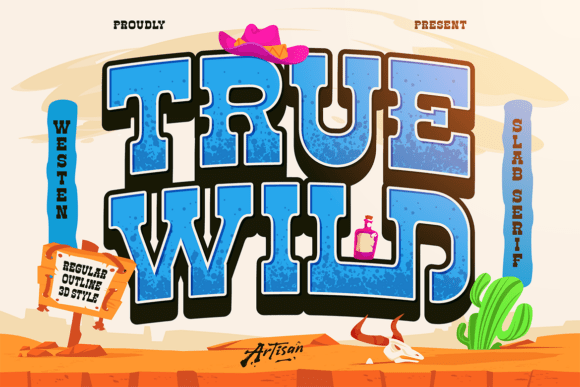
Truewild: A Bold Western Slab Serif for Modern Web Design
When you need a display font that commands attention while telling a story, Truewild delivers a distinctive slab serif personality rooted in the wild frontier but refined for contemporary digital work. This bold Western-style typeface captures the spirit of rugged independence, yet its clean letterforms and structured serifs make it surprisingly adaptable for web projects ranging from landing page headers to brand identity systems. For designers building conversion-focused layouts, Truewild offers a unique balance of character and readability that can elevate everything from hero titles to call-to-action buttons. Its modern twist on classic Western aesthetics means it works equally well for a cowboy movie poster or a rodeo event page, while also fitting seamlessly into boutique e-commerce and creative portfolio sites.
Truewild for Cowboy Movie Posters and Rodeo Branding
Truewild is a natural fit for projects that require a strong thematic presence. When designing a cowboy movie poster or rodeo branding, this display font brings immediate visual storytelling through its bold slab serif construction. The letterforms carry a sense of weight and history that evokes the American frontier, yet the modern proportions keep it from feeling dated. In a poster layout, Truewild works best as the primary title font, anchoring the composition with its sturdy vertical strokes and pronounced serifs. For rodeo event materials—whether printed or digital—the font establishes a cohesive visual tone that communicates tradition, strength, and a hint of adventure. Pair it with a clean sans serif font for dates and venue details, and you have a branded system that feels both authentic and professional.
Using Truewild in Hero Sections and Landing Pages
Hero sections demand typefaces that grab attention within seconds, and Truewild excels in this role. Its bold Western-style slab serif creates immediate visual impact, making it ideal for headline text that needs to stop users mid-scroll. When applied to landing page titles, Truewild adds a distinctive brand voice that separates your site from generic templates. Consider using it for the main headline on a product launch page or a coaching website where you want to project confidence and originality. The font's strong vertical axis and even color distribution ensure legibility even at larger sizes, which is critical for hero areas where text often sits over background images or video. For best results, keep the headline short—two to four words—and let the font's personality carry the visual weight.
Truewild for Digital Product Branding and Online Stores
Online stores and digital product branding benefit from typography that feels both trustworthy and distinctive. Truewild brings a crafted, artisanal quality to e-commerce design, especially for brands selling outdoor gear, handcrafted goods, Western-inspired apparel, or artisanal food products. Its slab serif form conveys durability and authenticity, which can increase perceived product value and user trust. In a product page layout, Truewild works well for product names and category headers, while a neutral sans serif handles descriptions and pricing. This combination clears visual hierarchy, helping shoppers scan quickly and find what they need. For online stores targeting a niche audience, the font becomes part of the brand identity, making the store feel curated rather than cookie-cutter.
Truewild and the Spirit of the Wild Frontier in Web Typography
The spirit of the wild frontier is about boldness, adventure, and a touch of unpredictability—qualities that Truewild translates into digital typography. Unlike standard slab serifs that can feel academic or industrial, this display font carries a narrative quality that invites users into a story. When used on a brand's homepage or about page, it sets an emotional tone that aligns with themes of exploration, resilience, and freedom. For blogs and content sites focused on travel, outdoor lifestyles, or Western culture, Truewild can be applied to section headers and pull quotes to reinforce the editorial voice. The font's modern twist ensures it doesn't slip into pastiche, making it suitable for brands that want to reference heritage without being trapped by it.
Readability and Visual Hierarchy with Truewild on Screens
Any display font used in web design must maintain readability across devices, and Truewild holds up well when applied thoughtfully. Its slab serif structure gives each character a clear outline, which aids legibility on smaller screens as long as you maintain sufficient size and contrast. For mobile layouts, use Truewild primarily for hero titles and major section headers, ideally at 28px or larger. Avoid using it for body copy or small button labels, where its decorative nature can reduce scanability. On dark backgrounds, consider adding a light text shadow or slight outline to preserve readability, especially for images with variable contrast. The font's even stroke weight helps it perform consistently across different screen types, from retina displays to standard monitors.
Font Pairing: Combining Truewild with Sans Serif and Serif Fonts
Effective font pairing is essential for building coherent digital identities, and Truewild pairs naturally with clean sans serif fonts that provide contrast and breathing room. A minimalist sans serif like a geometric or humanist style sits well alongside Truewild, handling body text, navigation menus, and secondary information while the slab serif takes the spotlight in headings. For a more editorial feel, you can pair Truewild with a modern serif font for subheadings and captions, creating a layered hierarchy that feels sophisticated and intentional. When building a brand kit for a client, recommend this pairing structure: Truewild for primary headlines, a neutral sans serif for body copy, and optionally a script or handwritten font for accent quotes or decorative elements. This setup ensures visual rhythm without overwhelming the reader.
Truewild for Banners, Call-to-Action Areas, and Social Media Graphics
Banners and call-to-action areas require type that is both legible and persuasive, and Truewild delivers in both areas. For online shop banners advertising seasonal sales or new arrivals, the font's bold presence ensures the message reads clearly at a glance. In CTA buttons, use Truewild sparingly—perhaps for the most important action like "Shop Now" or "Join the Ride"—but keep the text short to maintain button balance. Social media graphics also benefit from Truewild's strong personality, especially for Instagram stories, Facebook covers, or LinkedIn banners where you want to reinforce brand character. The font works well in horizontal formats with generous tracking, and its slab serif details add visual interest that stands out in busy feeds. For consistent online identity, use the same pairing system you apply to your website across all social assets.
Truewild offers web designers and digital creators a rare combination: a display font with strong narrative roots that performs reliably in modern interface design. Its bold Western-style slab serif adds instant character to hero sections, banners, and brand identities, while its structured letterforms support readability and hierarchy when used strategically. By pairing it with simple sans serif fonts and applying it to key touchpoints, you can build digital experiences that feel both adventurous and professional. Whether you are designing a cowboy movie poster, a rodeo event site, or a boutique online store, Truewild provides the typographic anchor you need to make a lasting impression.